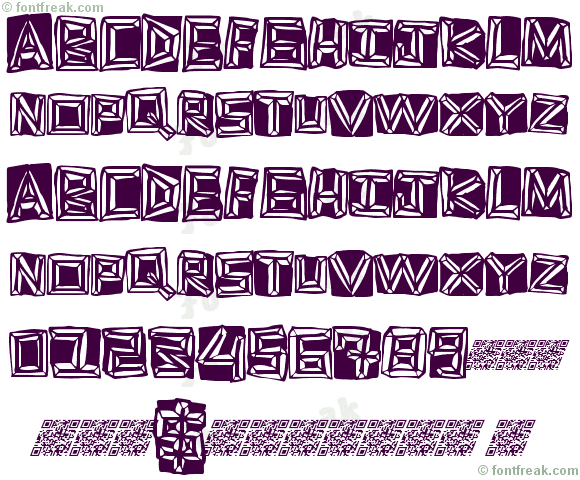
GoldRing
GoldRing by Xerographer Fonts is a striking display font that captures attention with its unique, geometric design. This font features bold, angular strokes that create a sense of depth and dimension, making it visually captivating. The contrast in stroke weight adds an element of sophistication, while the deliberate spacing between characters ensures clarity and readability. GoldRing's decorative elements, reminiscent of artisan craftsmanship, enhance its overall aesthetic, making it a standout choice for various design projects.
This font is ideal for use in wedding invitations, where its distinctive style can add a touch of elegance and personalization. It's also perfect for movie posters, allowing designers to create eye-catching titles that draw the viewer's eye. Restaurant menus can benefit from GoldRing's bold presence, helping to highlight special dishes or featured beverages in a way that is both appealing and memorable. Additionally, this font works well for branding materials, particularly for businesses looking to convey a modern yet artistic image.
Targeted towards graphic designers, small business owners, and content creators, GoldRing provides versatility and flair for any project. Whether you're designing for print or digital media, this font offers a unique character that can elevate your work.